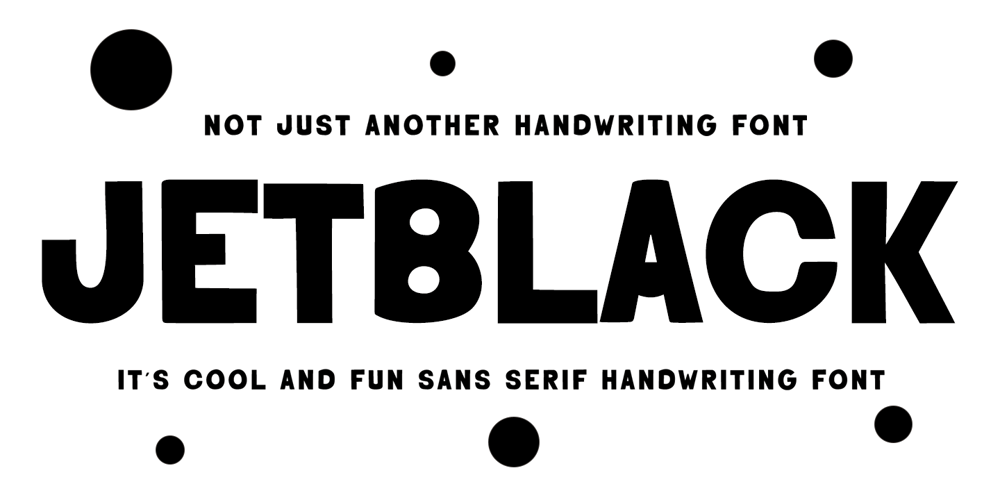
Jetblack
Jetblack font
Jetblack Font Family was designed by Doli Harahap and published by Tigade Std. Jetblack contains 1 styles and family package options. Midnight is a cool, bold, and thick lettered sans serif font. It will elevate a wide range of crafting ideas, from cards, to branding, labels, and much more.Add it confidently to your favorite creations and let yourself be amazed by the outcome generated.